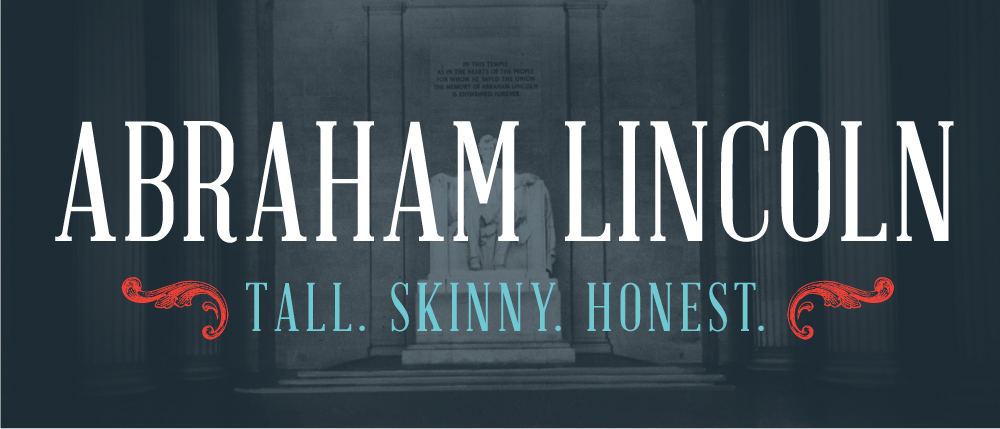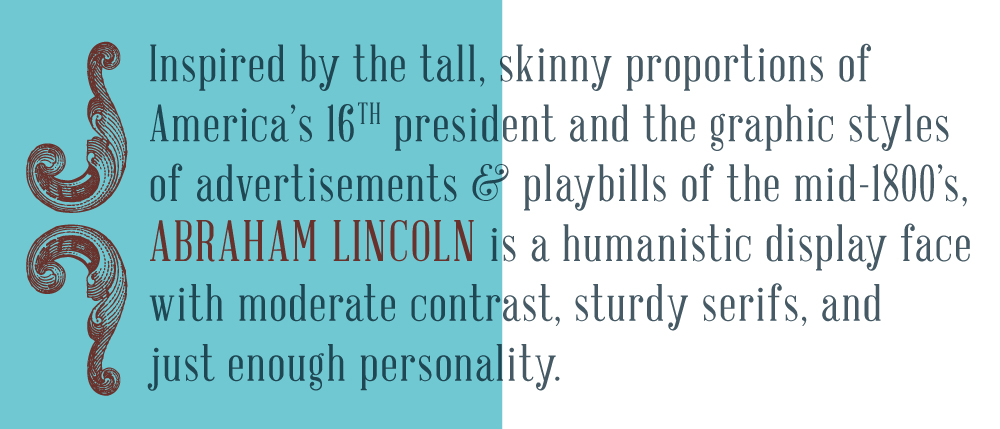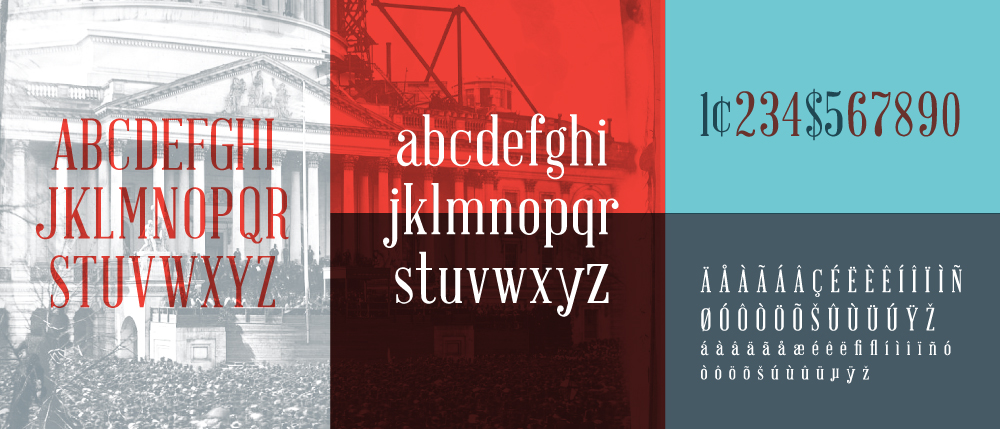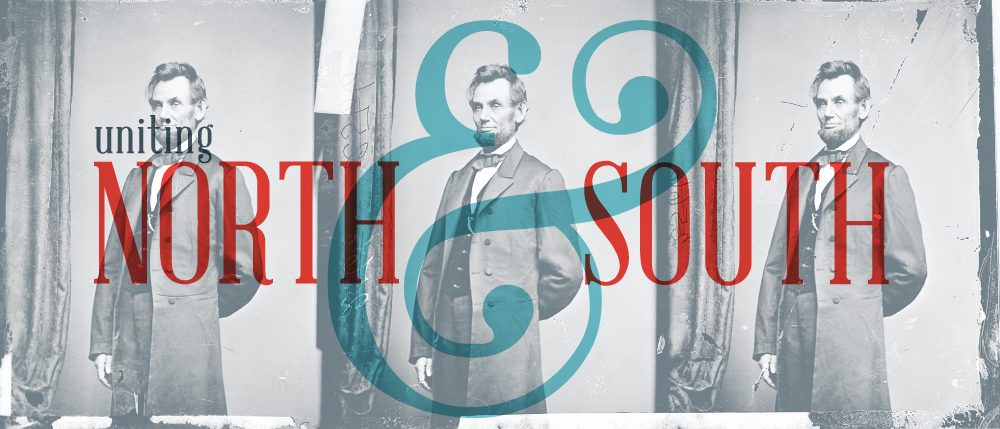
Inspired by the proportions of the 16th President of the USA, and advertisements/playbills of the 1800s, Abraham Lincoln is a humanistic display face with moderate contrast and sturdy serifs.